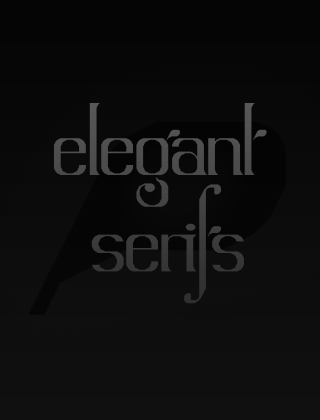
Another elegant design - Go for those caps ... you showed what you can do with Arlen :)
Good stuff...some really beautiful glyphs...f, g, y.
I love the crossbar of the t, but I think the bottom part needs something different.
Tried out a couple of varitation on the 't'; any of you guys' thoughts on the matter would be loved and appreciated, since I can't really seem to settle on which one I like best myself!
I like the last one the best, but maybe keep the 3rd (from the left) as an alternate.
I basically agree with aphoria, except I would switch the order. Keep the elegant descender as the default and include the more standard final version as the alternate.
On second thought...I think will.i.ૐ is right, keep the long descender as the the default and the regular one as the alternate.
What do you think about giving the q the curled descender treatment?
...and because of the modular pixeling, this is a good candidate for the ol’ “bezier-like” fs treatment. : )
THE VOTE IS IN! Hahah. Elegant 't' is implimented; the standard 't' is also available (currently hanging out in the currency symbol's [¤] spot at the moment). Slightly modified from what I showed before, though, so I'll let y'all play around and see. ;P
aphoria: I originally did try the 'q' out with the descender pointing left like everything else, but that tends to read more like a 'g' than a 'q'. Buuuut with the standard 't' in there now, maybe a flipped descender won't be so out of place!
Also, freaking sweet mod, will!! I will have to give some more of those angled shapes a try in an alternate version... maybe once I finally get the caps done, hahaha. ;P
Oh yes, the descender of the q should curve to the right. I think the t should too, otherwise it is too similar to the f.
aphoria: Oh yeah, I had a version with the alternate right-pointing 't' with the new 'q'... looked pretty nice as it was.
I'll probably leave the elegant 't' as the main option and the alternate 't' as ...er, the alternate! But the new 'q' is in, so have at it!
I will probably continue to update both (i.e. with caps, haha). Starting with the pixel version and then going into the fancy curves is easier than the other way around!
Startin' the caps...
... and finished! For now, anyway. I will later become dissatisfied with them and change them, promise.
Beautifully done ... now it gets a 10 :)
Caps will be going into the alternate version soon, once I decide whether or not I'm satisfied with how they are here. (And once I get onto a substantially less crappy 'net connection, haha.)
Elegant and cool looking!